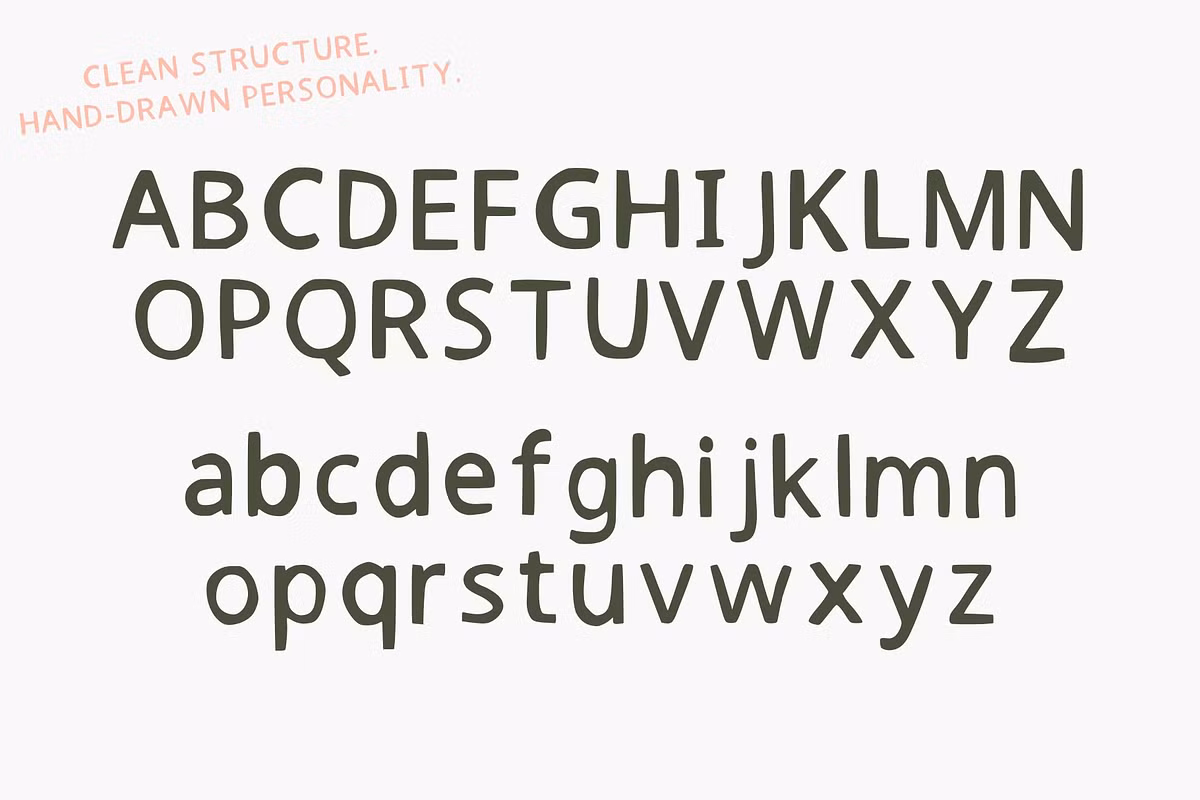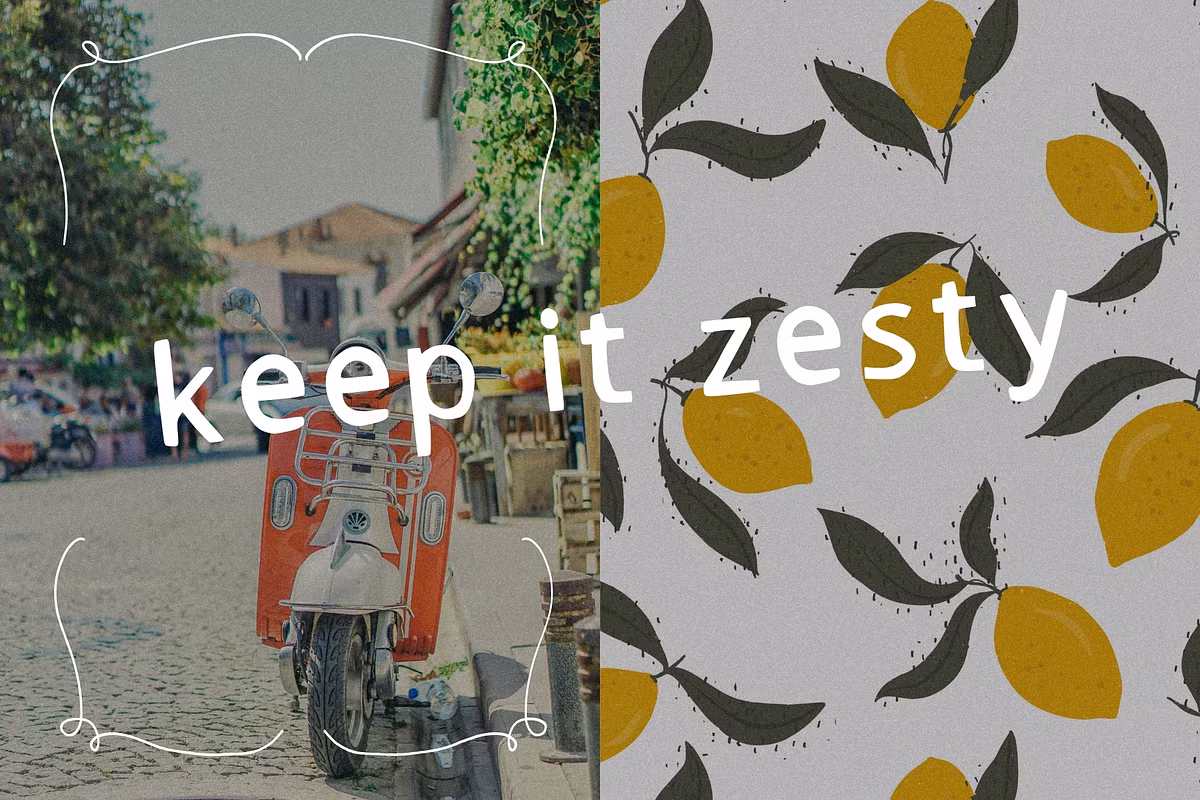
Lemori: Friendly Handwritten Sans Serif Font for Creative Design
Introduction to Lemori
Lemori is a really nice font that’s easy to read and has a friendly feel to it. It’s like a mix of a simple, clean font and handwriting, which makes it perfect for designs that need to look warm and inviting. You can use Lemori for all sorts of things, like making logos, packaging, and social media posts, because it’s so versatile.
The soft and fresh look of this font makes it great for creative projects that want to seem approachable and nice. Whether you’re working on a brand, a logo, or just a post for social media, Lemori is a good choice because it’s easy to use and looks really good.
It’s a great tool for designers to have, and it can be used in many different ways to make your designs look friendly and fun.
Design Style of Lemori
Lemori’s design is a mix of simple and subtle imperfections. It’s similar to traditional sans serif fonts, which are easy to read and understand. But Lemori adds some handmade touches that make it look natural and effortless.
This blend of old and new makes Lemori a great choice for many different projects. It feels modern, but also timeless, which is pretty rare. The clean lines and gentle imperfections work well together, creating a typeface that’s both stylish and easy to use.
Lemori’s unique style makes it perfect for anyone looking for a font that’s a little bit different, but still easy to read and understand. Whether you’re working on a creative project or just need a new font for your everyday work, Lemori is definitely worth considering.
Its modern yet timeless feel makes it versatile and useful in many different situations. Lemori has a really cool feature – it’s written in a casual, handwritten style.
Character Sets and Typography Features
Lemori has a wide range of characters, including big and small letters, numbers, and punctuation marks. This means you can express yourself in many different ways when you’re designing something.
It’s also great for companies that want to talk to people who speak different languages, because it can handle text in many languages. This makes it a really useful tool for brands that want to reach people all around the world.
With Lemori, you can create designs that are both effective and creative, and that can be understood by people from many different backgrounds.
Use Cases for Lemori
Lemori is a really flexible font that can be used in lots of different ways. It’s great for all sorts of creative projects, and here are a few examples of how you can use it:
- Branding: Lemori’s friendly and approachable style makes it an excellent choice for branding projects, especially for businesses that want to convey warmth and accessibility.
- Logo Design: The unique characteristics of Lemori stand out in logo design, providing a memorable and inviting visual identity.
- Packaging: Whether it’s for food products, handmade goods, or lifestyle items, Lemori adds a touch of personality to packaging that resonates with customers.
- Social Media Graphics: The font’s readability and charm make it ideal for quotes, captions, and promotional graphics on social media platforms.
- Stationery: From invitations to business cards, Lemori enhances the aesthetic of stationery with its handwritten flair.
- Children’s Design: The playful nature of Lemori is perfect for children’s books, educational materials, and toys, making content engaging and fun.
Pairing Suggestions for Lemori
When working with Lemori, it’s important to consider font pairings that complement its unique style. Here are some suggestions:
- Sans Serif Fonts: Pair Lemori with clean sans serif fonts like Montserrat or Open Sans for body text. This contrast allows Lemori to shine in headlines while ensuring readability in longer passages.
- Serif Fonts: Using a serif font like Playfair Display with Lemori can make for a really interesting mix of old and new styles. This combination works well for creating a sophisticated brand image.
- Handwritten Fonts: For a cohesive look, you can pair Lemori with other handwritten fonts, such as Pacifico or Dancing Script, for a playful and informal vibe.
Lemori is a great choice if you want a friendly, handwritten font that looks modern and fresh. It has a special design and lots of characters that can be used in many different ways, making it really useful for designers.
You can use Lemori for lots of things like branding, packaging, and social media graphics – it adds a warm and personal touch to your work while still being easy to read.
With Lemori, you can make your designs more interesting and charming, which is really important for making them stand out. It’s a lovely font that can help you create some amazing things.